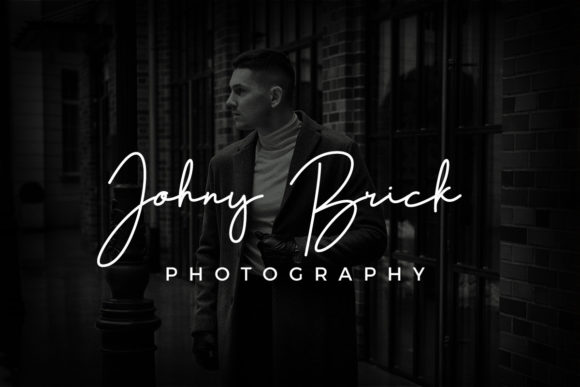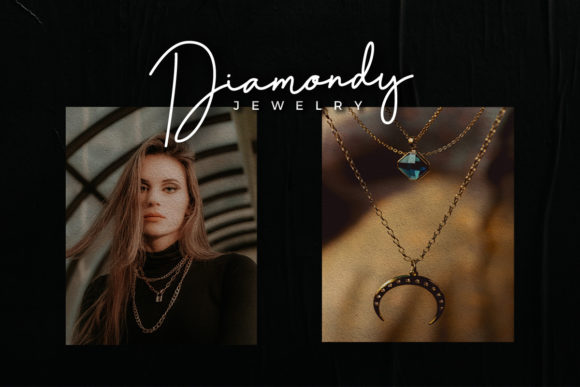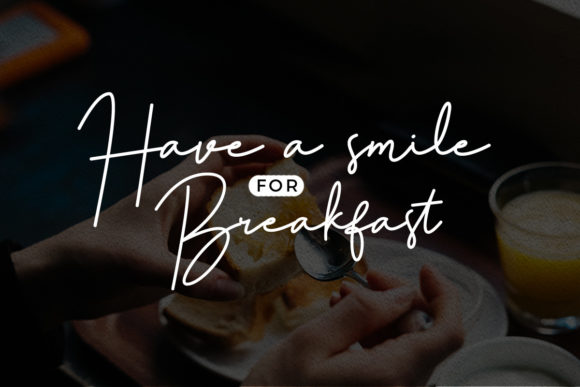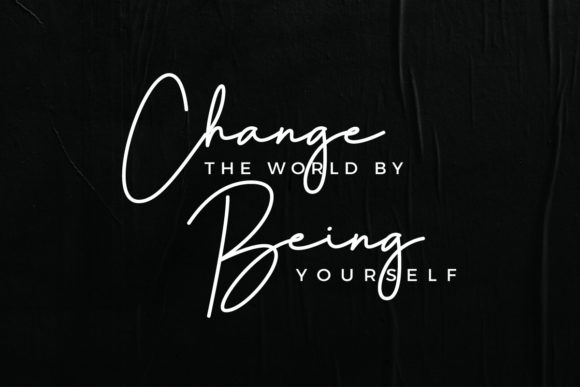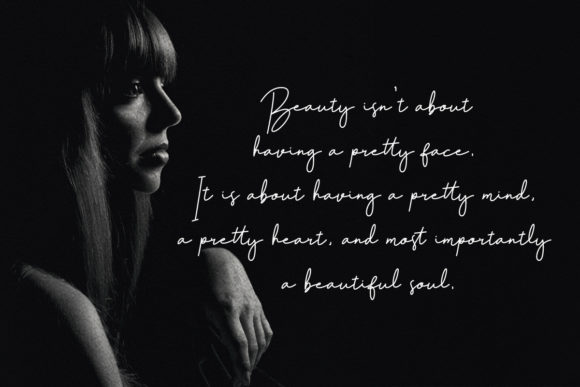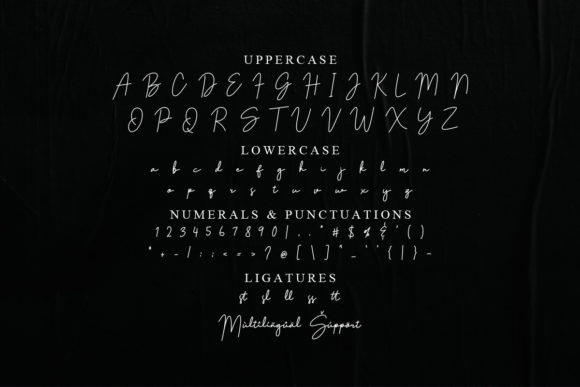
Unlock the Power of Whimsical Design with Amadgone Font
As a designer, have you ever been in a creative zone where the perfect font just clicks? Maybe it’s a late-night brainstorming session, or a sudden flash of inspiration while browsing through a typography library. Whatever the moment, it’s a rush that’s hard to beat. And when you find that special font that elevates your design to the next level, it’s a feeling that’s hard to forget.
Enter Amadgone Font, a delicate and refined handwritten font that’s about to become your new best friend. With its clean, thin, and smooth vibe, this font is the perfect addition to any design project. Whether you’re working on a branding project, a wedding invitation, or a social media campaign, Amadgone Font is sure to bring a touch of elegance and sophistication to your work.
Amadgone Font Key Features
- Font Family: Amadgone Font is a unique, high-quality font family designed for various applications, including graphic design, digital art, and publishing.
- Character Set: The font family includes a wide range of characters, including Latin, Cyrillic, and Greek alphabets, as well as various punctuation marks and symbols.
- Size: Amadgone Font is available in 4 font sizes: Regular (400 units per em), Medium (500 units per em), Bold (600 units per em), and Extra Bold (800 units per em), catering to different design needs.
- Resolution: Designed for high-resolution displays, Amadgone Font supports resolutions up to 300 DPI, ensuring crisp and clear text rendering.
- Unique Characteristics: The font features a distinctive, elegant design with a mix of modern and vintage elements, making it suitable for various design projects, from corporate branding to artistic expressions.
Amadgone Font Review
Initially, I was drawn to the uniqueness of the Amadgone font. It stands out from other fonts in its category, and I think that’s what makes it interesting. ✨ The irregular shapes and lines give it a creative, artistic feel that would be perfect for projects that need a touch of whimsy.
- Unique design: Amadgone font’s unconventional style makes it ideal for projects that require a distinctive look.
- Readability: Despite its unusual shape, the font is surprisingly readable, especially in larger sizes.
However, there are a few areas where the Amadgone font falls short. ⚠️ One of the main limitations is its limited character set. While the font has a wide range of characters, it’s not as comprehensive as some other fonts, which could be a problem for projects that require a lot of special characters.
Another issue is the font’s scalability. While it looks great at larger sizes, it can become quite blurry and pixelated at smaller sizes, which may be a problem for projects that require a lot of text.
Overall, I think the Amadgone font is a great choice for designers who are looking for a unique and creative font to add some flair to their projects. However, it may not be the best choice for projects that require a lot of text or need a more comprehensive character set.
Tips: Use Amadgone Font to create eye-catching headings and titles. Experiment with different font sizes and colors to make your design stand out.
Tips: Use Amadgone Font to add a touch of elegance to your designs. Experiment with different font styles and effects to create a unique look.
Tips: Use Amadgone Font to add a professional touch to your presentations and documents. Experiment with different font sizes and colors to make your content stand out.
Amadgone Font is suitable for a variety of designs, including:
- Social media graphics and ads
Tips: Use Amadgone Font to create a consistent brand
Q: What is the recommended font size for Amadgone Font?
The recommended font size for Amadgone Font is between 12pt and 24pt. However, the optimal font size will depend on the specific application, the intended use, and the desired visual effect. We recommend experimenting with different font sizes to find the best fit for your project.